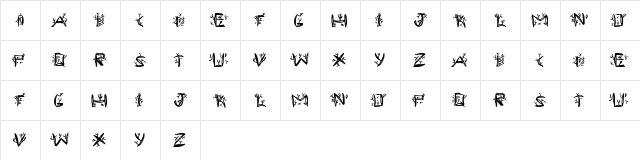
Ramada1 Regular Font Preview
Ramada1 Regular
Design Context for Ramada1 Typeface
Ramada1 is a composed and adaptable typeface that performs quietly and consistently across a wide range of design contexts.